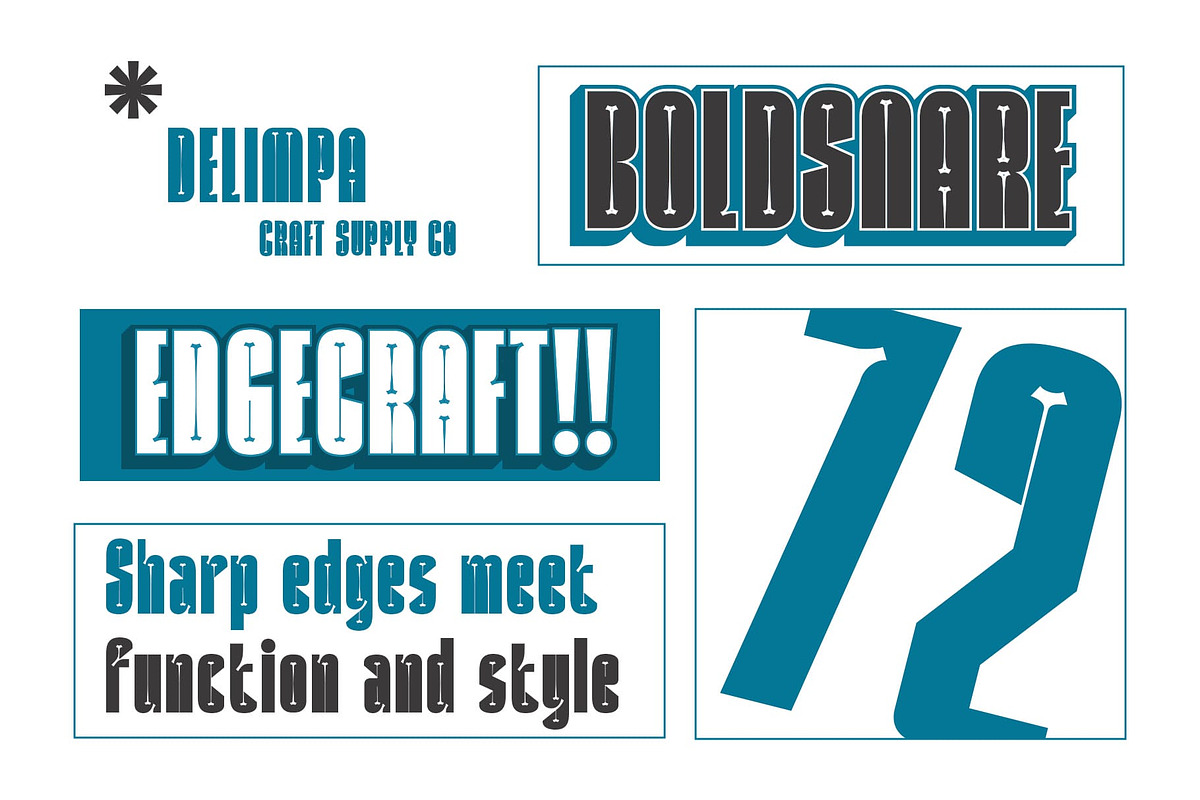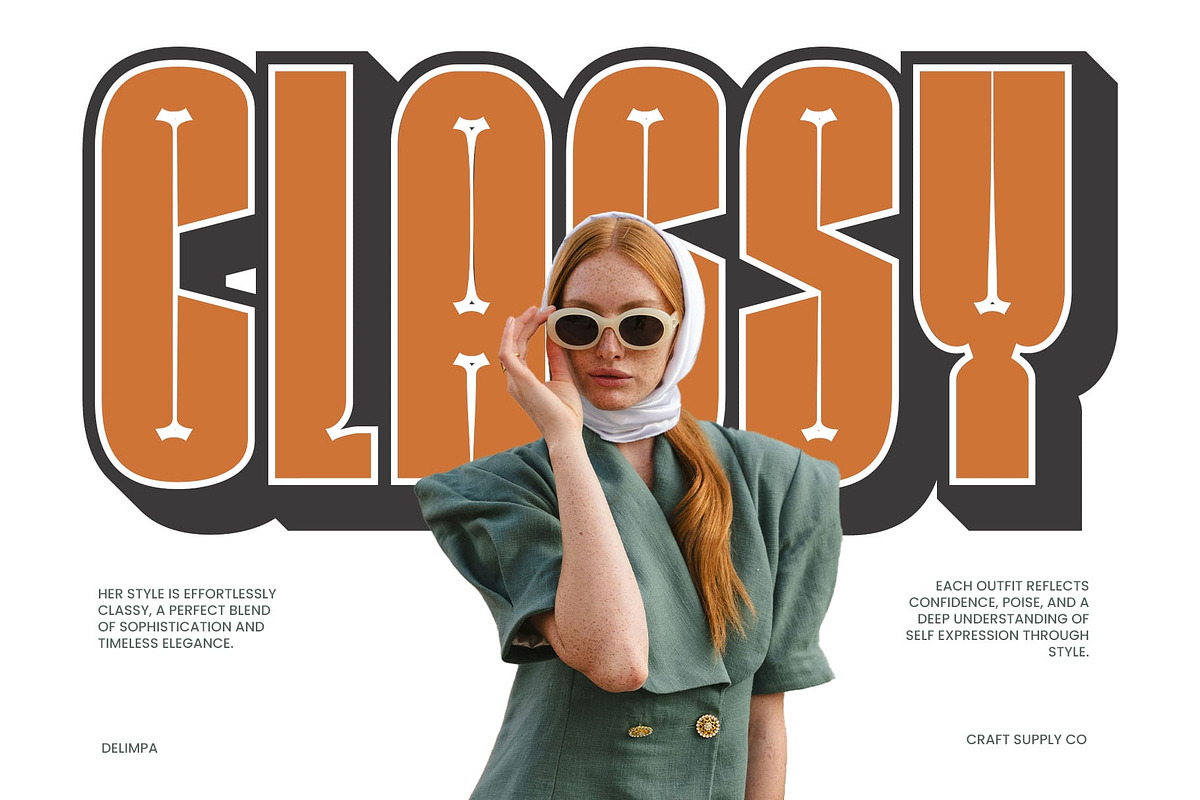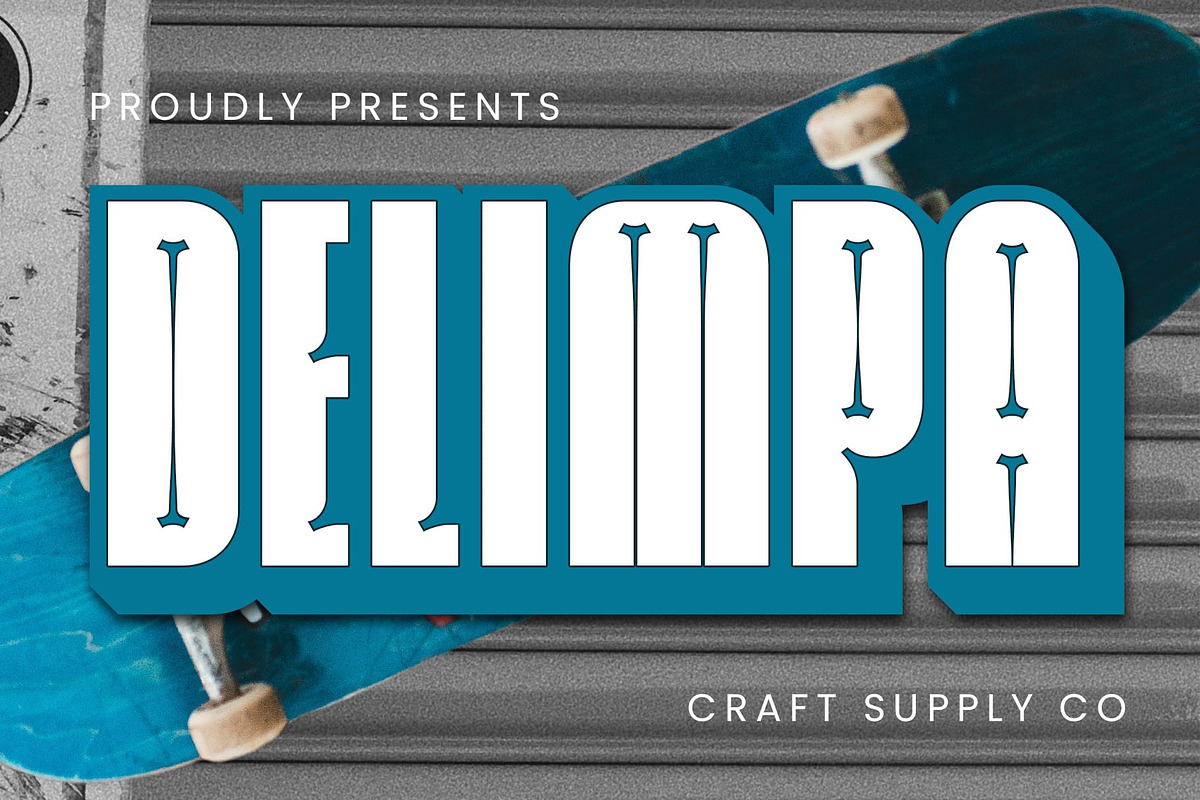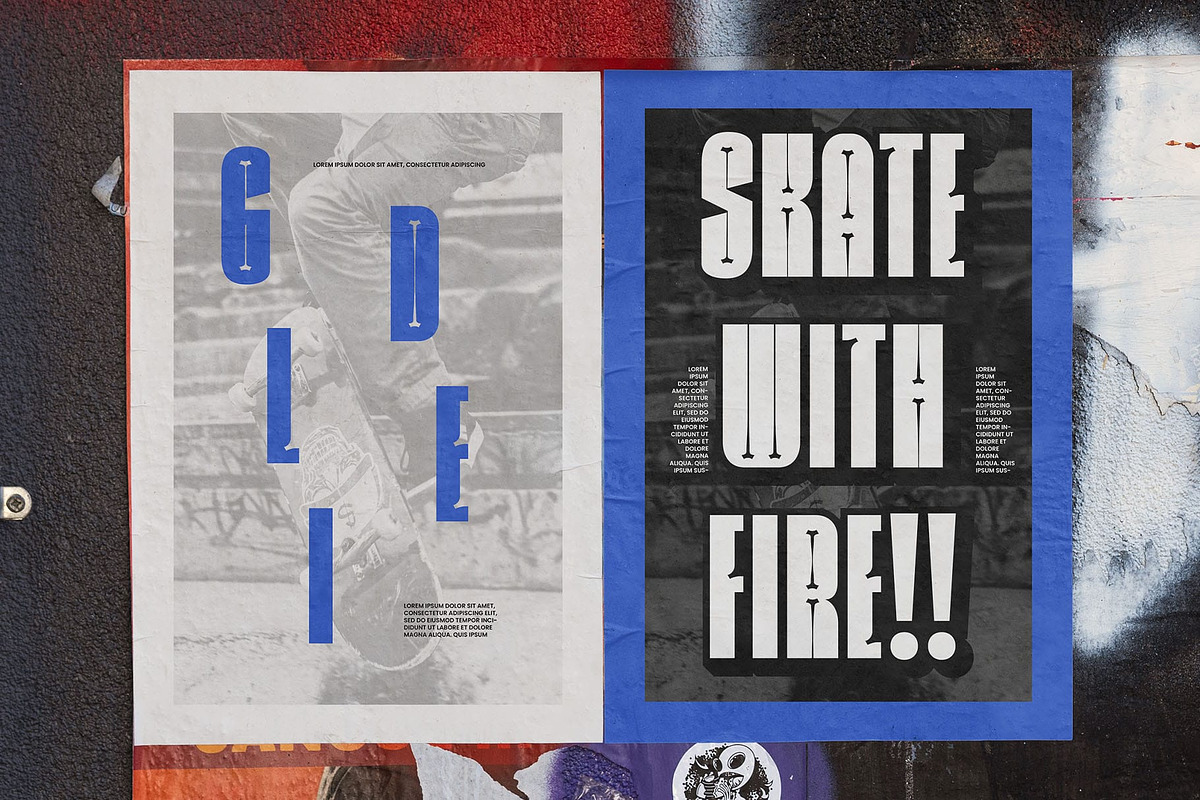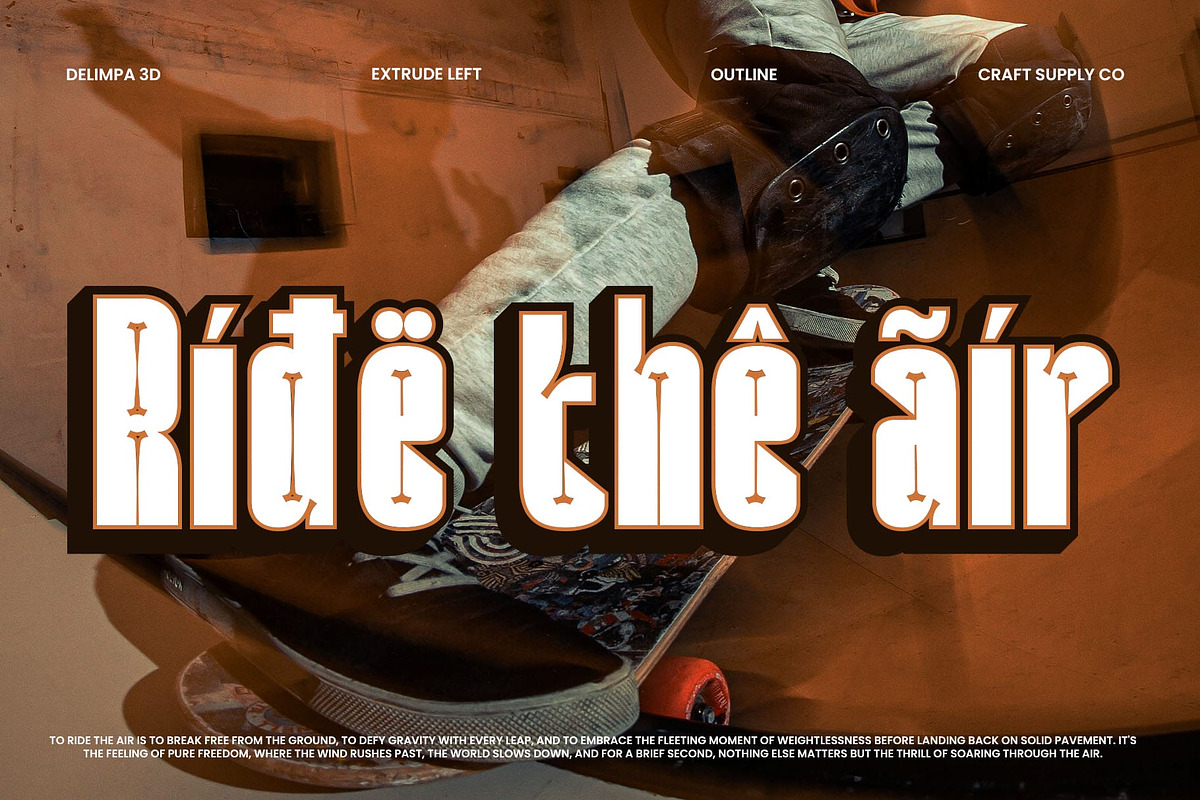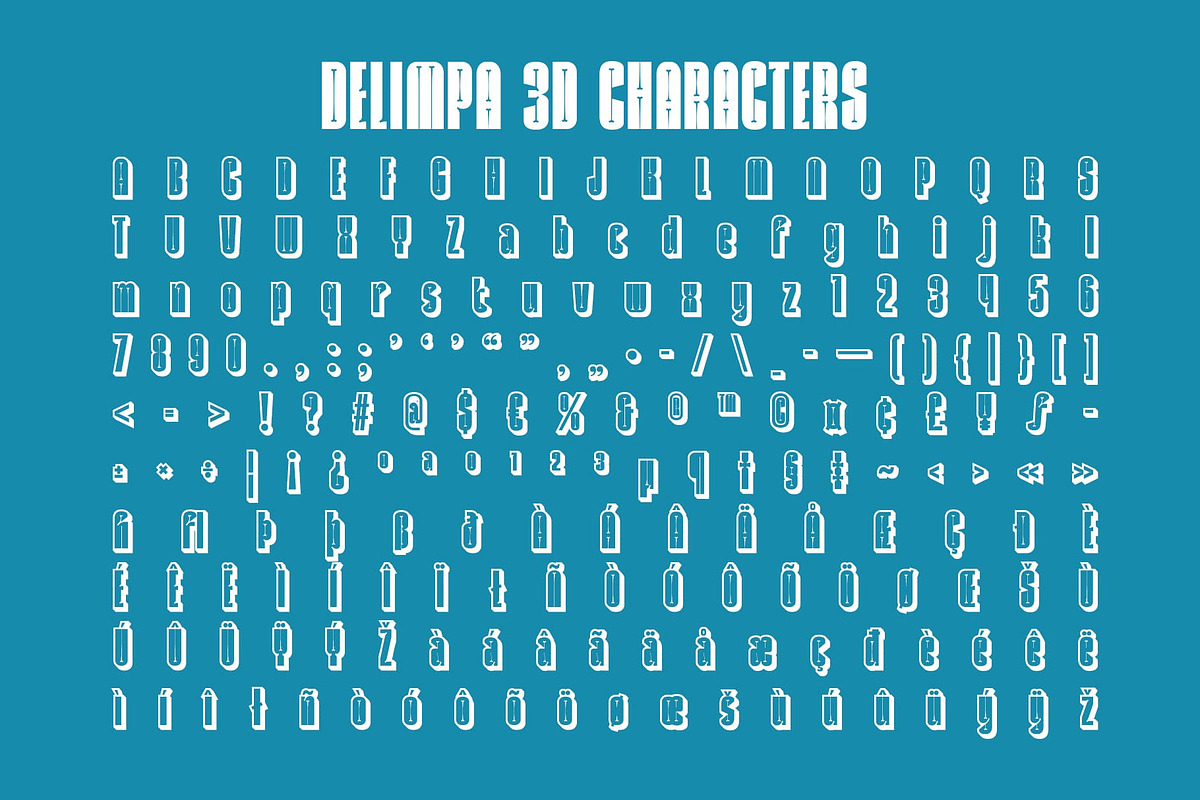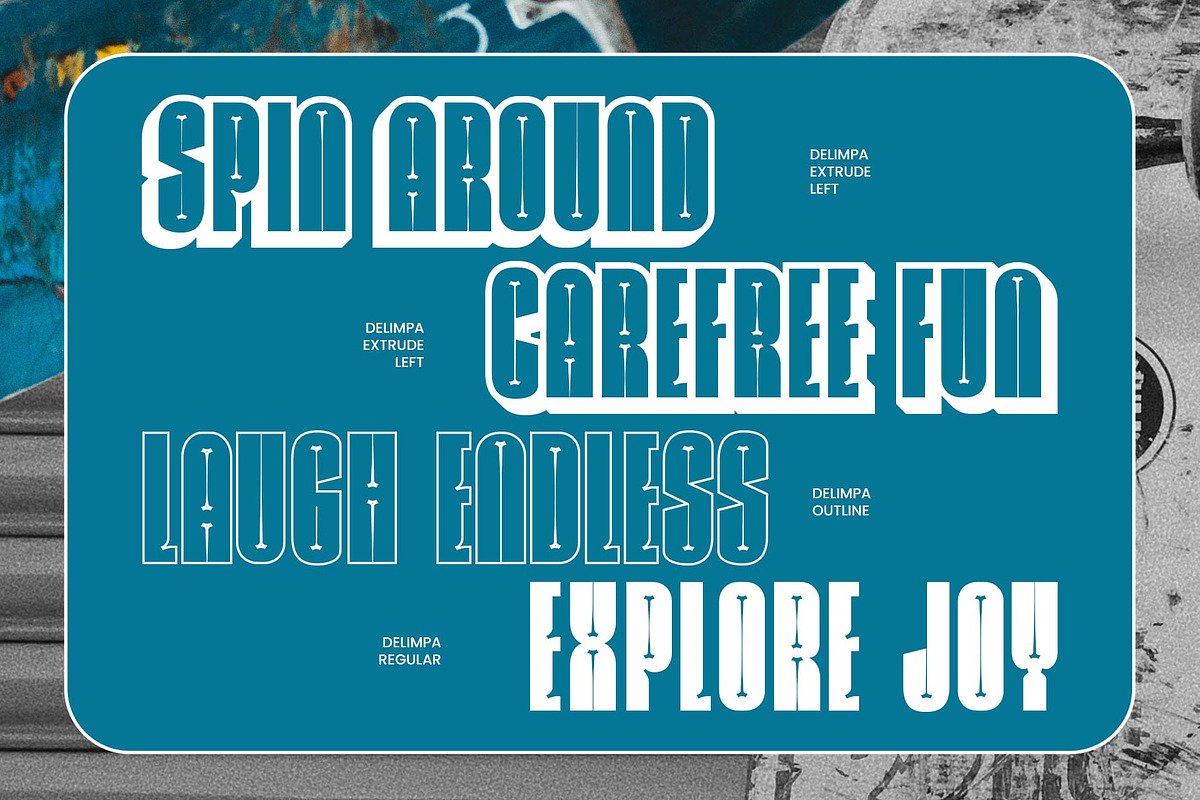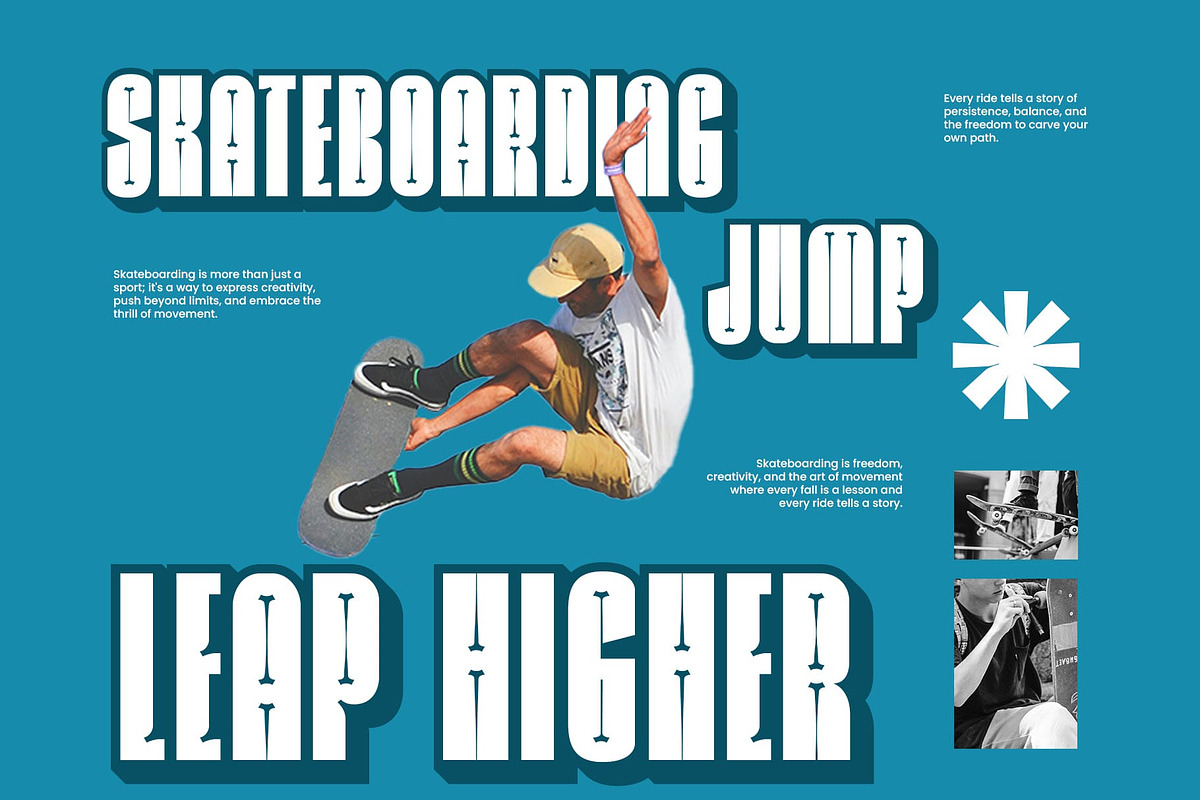
Delimpa 3D
Delimpa 3D Font: Bold Precision with Dimensional Depth
Modern Sans-Serif with a Condensed and Bold Form Delimpa 3D is a striking sans-serif font that blends a condensed structure with bold weight, creating a commanding presence in any design. Its sharp, clean lines enhance readability, making it ideal for impactful typography that demands attention.
Distinctive Inktrap Details for Sharp Clarity Featuring inktrap details, Delimpa 3D refines its letterforms with precision, ensuring sharpness and clarity at any size. These subtle yet functional elements enhance its modern appeal while improving legibility, especially in digital and high-contrast designs.
3D Effect for Depth and Dimension The addition of a dynamic 3D effect elevates Delimpa 3D, giving text a sense of volume and depth. This feature makes it a standout choice for futuristic branding, eye-catching posters, and innovative design projects that require bold, immersive typography.
Versatile for Futuristic and Bold Creative Designs Whether for branding, editorial layouts, or high-impact digital content, Delimpa 3D adapts seamlessly to various design needs. Its contemporary structure, combined with its dimensional effect, makes it perfect for projects that aim to be both modern and visually powerful.